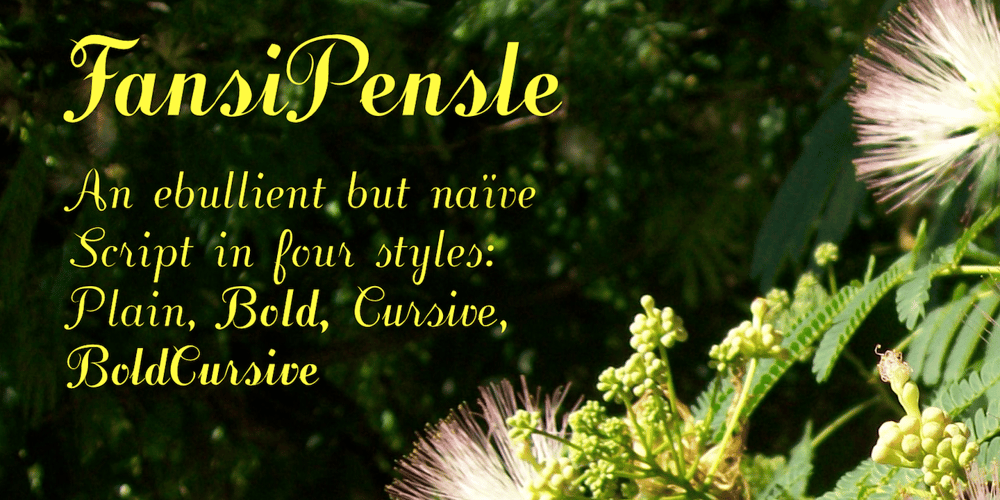
Fansi Pensle Font Family was designed by Robert Schenk and published by Ingrimayne Type. Fansi Pensle contains 4 styles and family package options. FansiPensle is a set of four decorative scripts. The capitals are fussy and ostentatious and a little weird with strange flourishes. The lower-case letters are neat and simple. Lower-case letters have the shapes of a cursive alphabet and they are connected in the cursive and cursive-bold styles but not in the plain and bold styles.